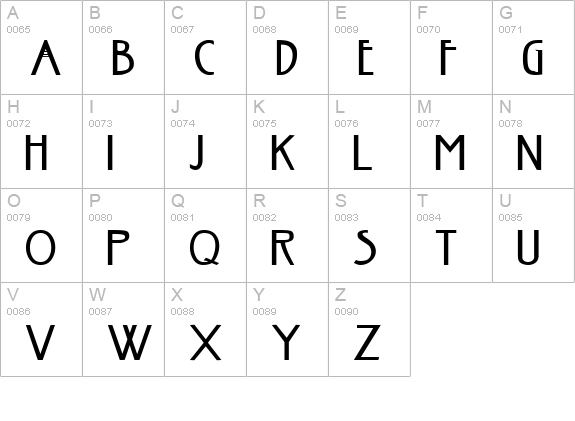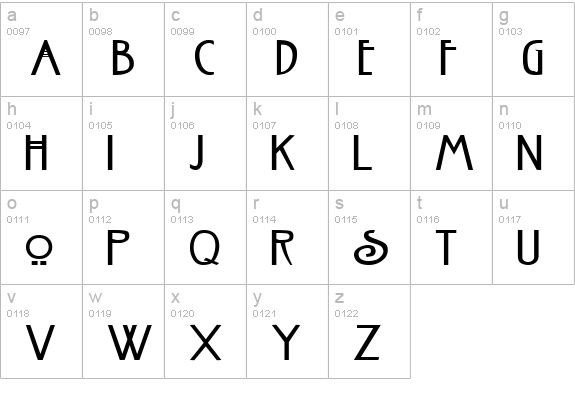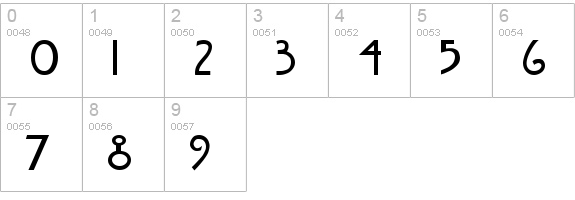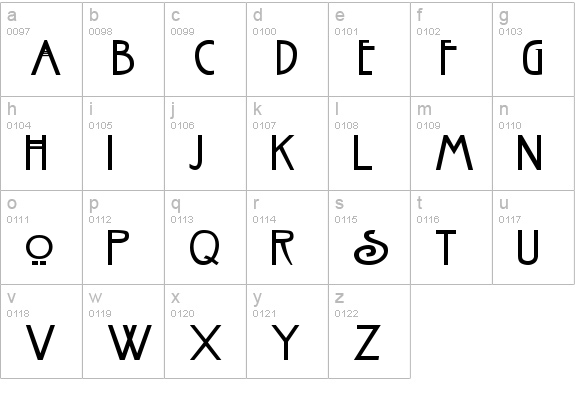
Senussi Font Details
Introducing the exquisite Senussi font, a versatile typeface that combines elegance with a touch of modernity. This font is perfect for a wide range of design projects, from invitations to branding and everything in between. With its clean lines and sophisticated style, Senussi font exudes a sense of refinement and class. What sets Senussi font apart is not just its aesthetic appeal, but also the fact that it is available for free download at FontsMarket.com. Yes, you read that right - this stunning font can be yours at no cost, allowing you to enhance your designs without breaking the bank. Whether you're a seasoned designer looking for a fresh new font to add to your collection or a beginner searching for the perfect typeface to elevate your projects, Senussi font is sure to impress. Download it today and see for yourself the magic it can bring to your designs.